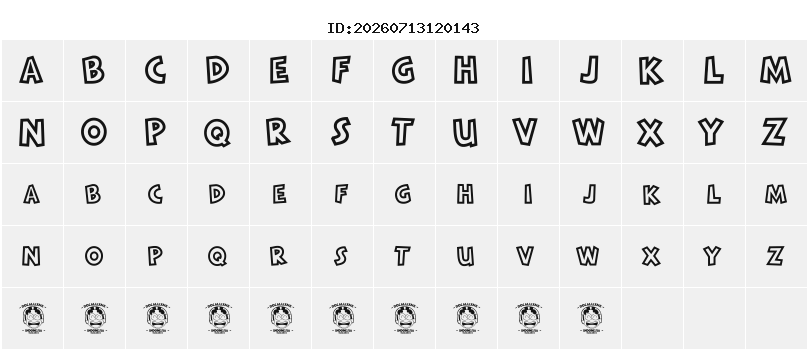
RADITAS CARTOON Preview
About RADITAS CARTOON.otf
RADITAS CARTOON.otf is a modern, elegant sans-serif font designed for ultimate readability and visual harmony. Perfect for branding, headlines, web design, and print materials.